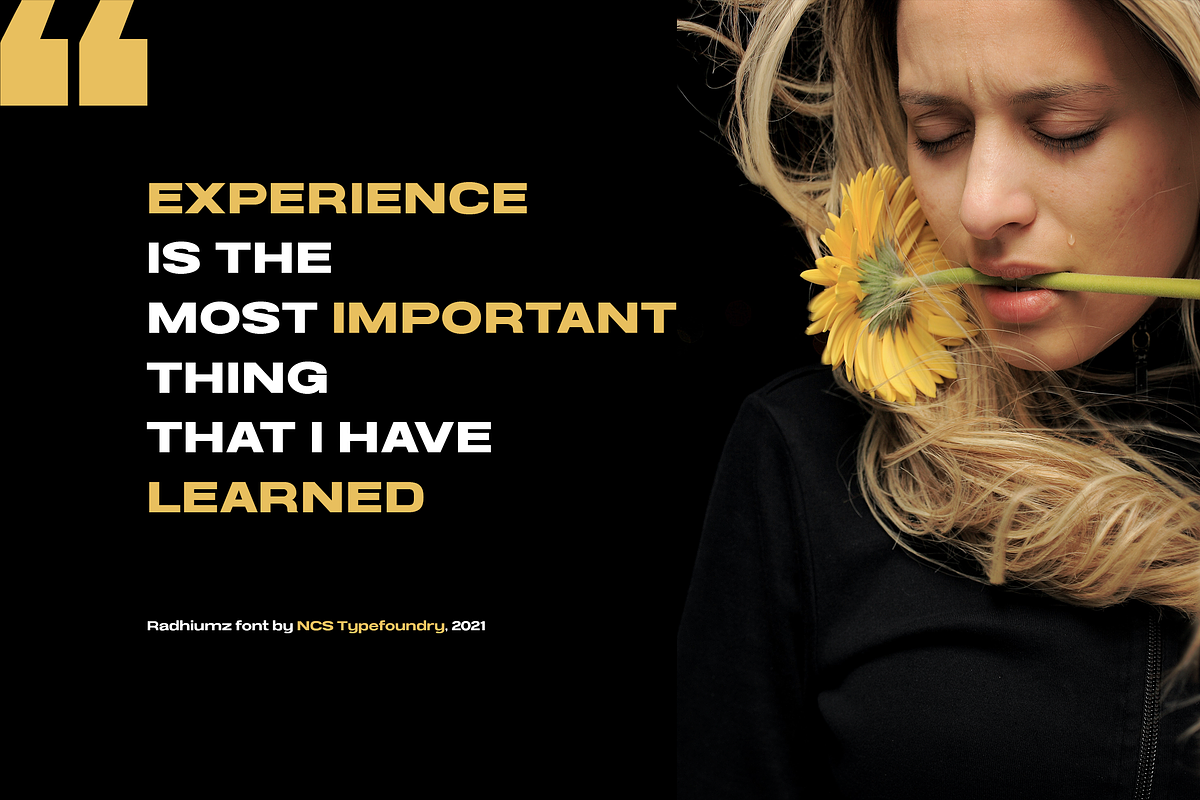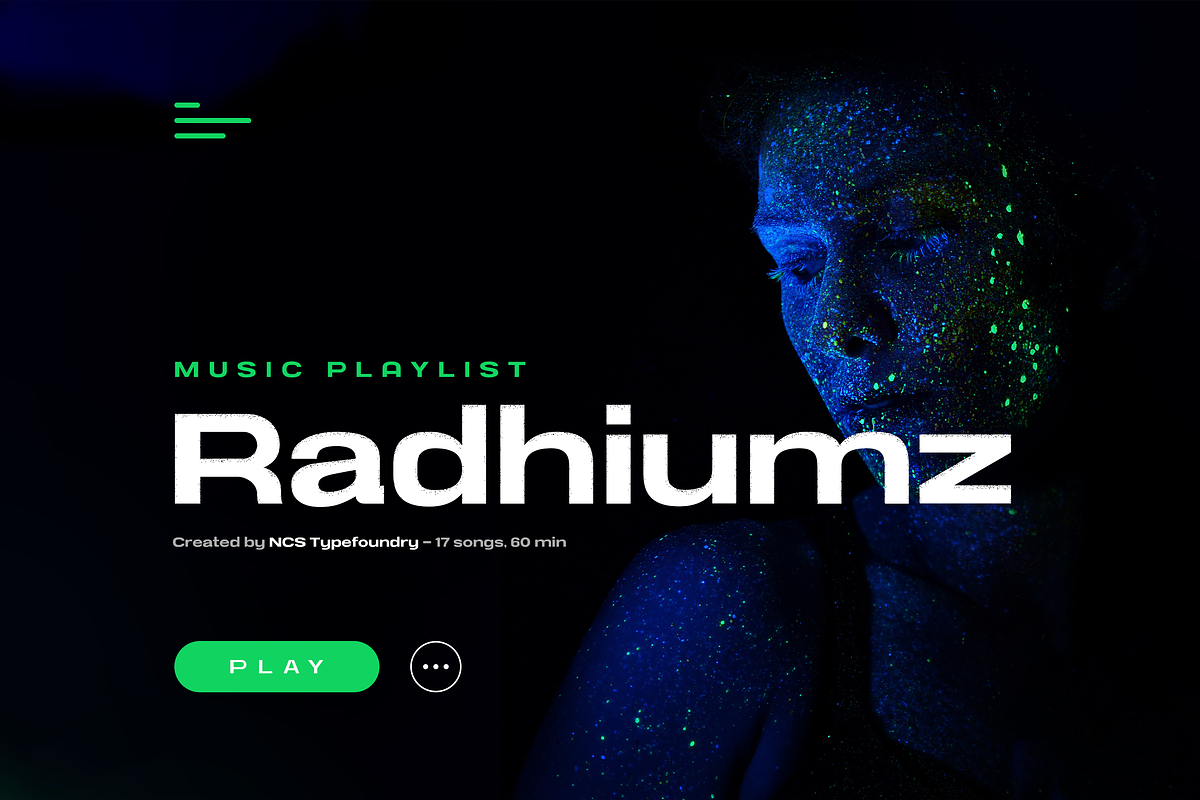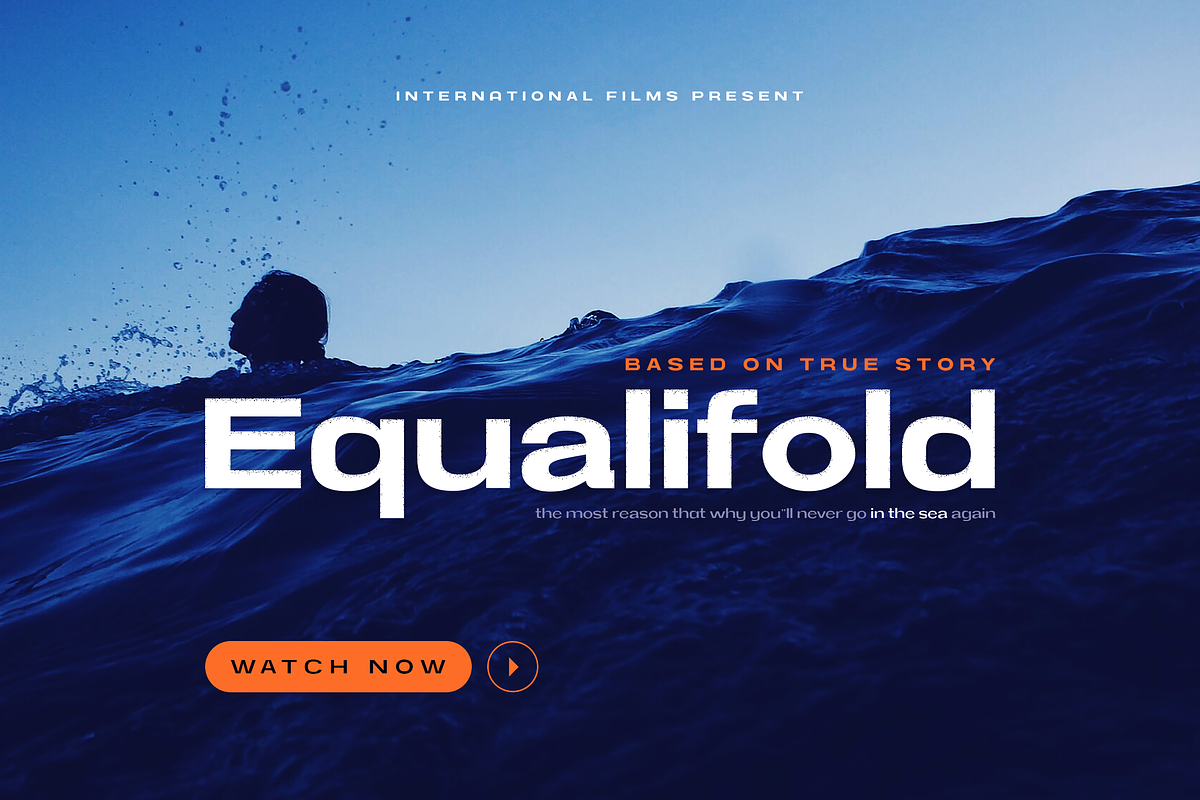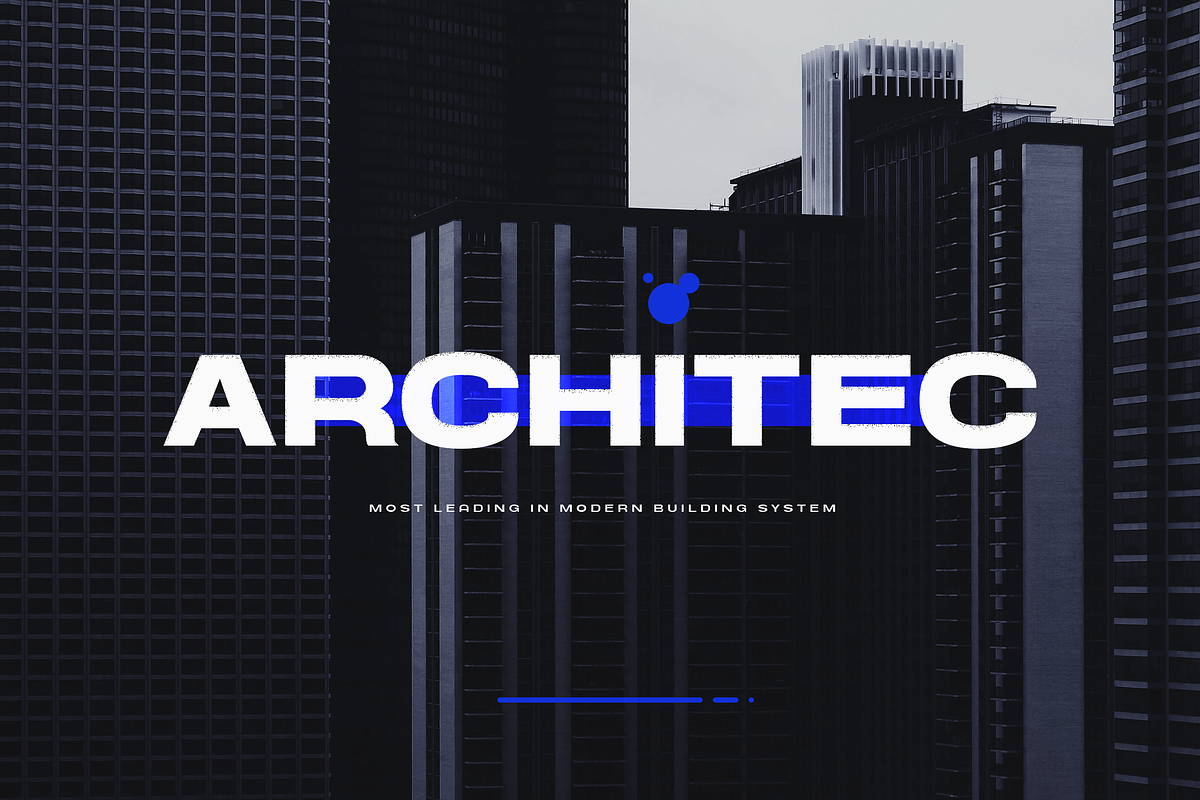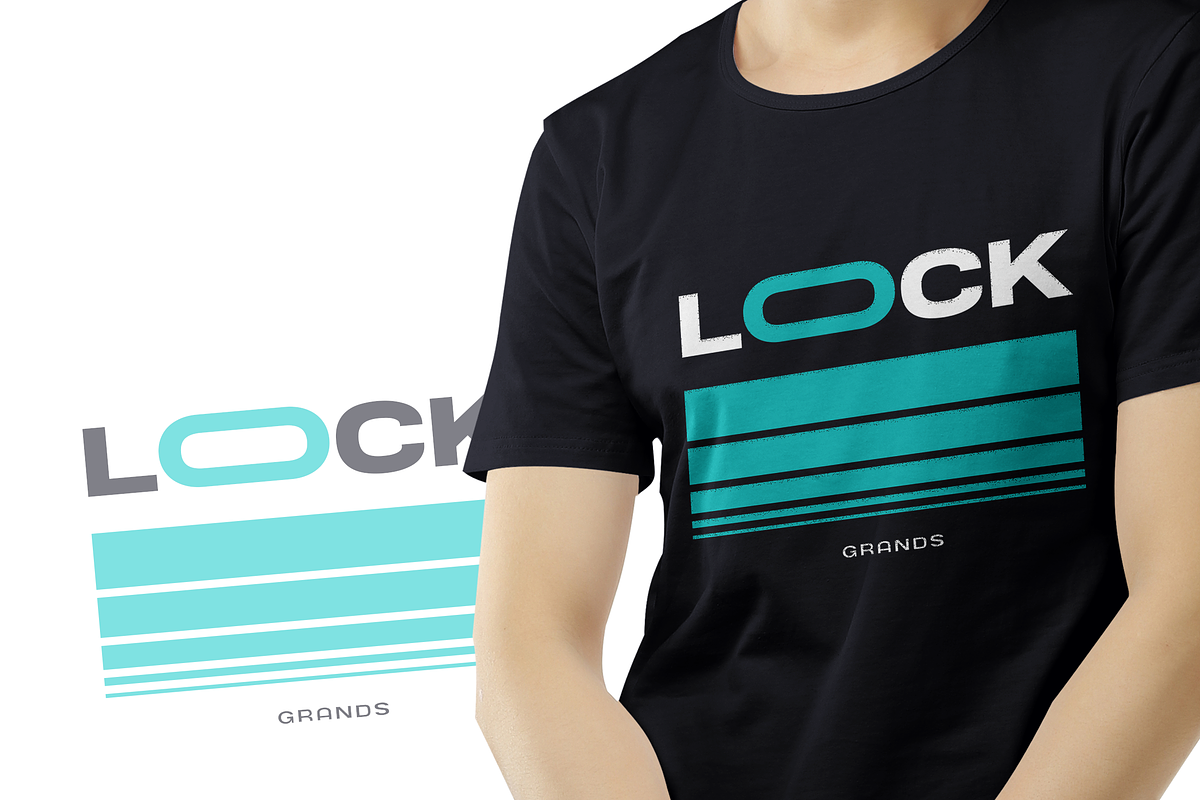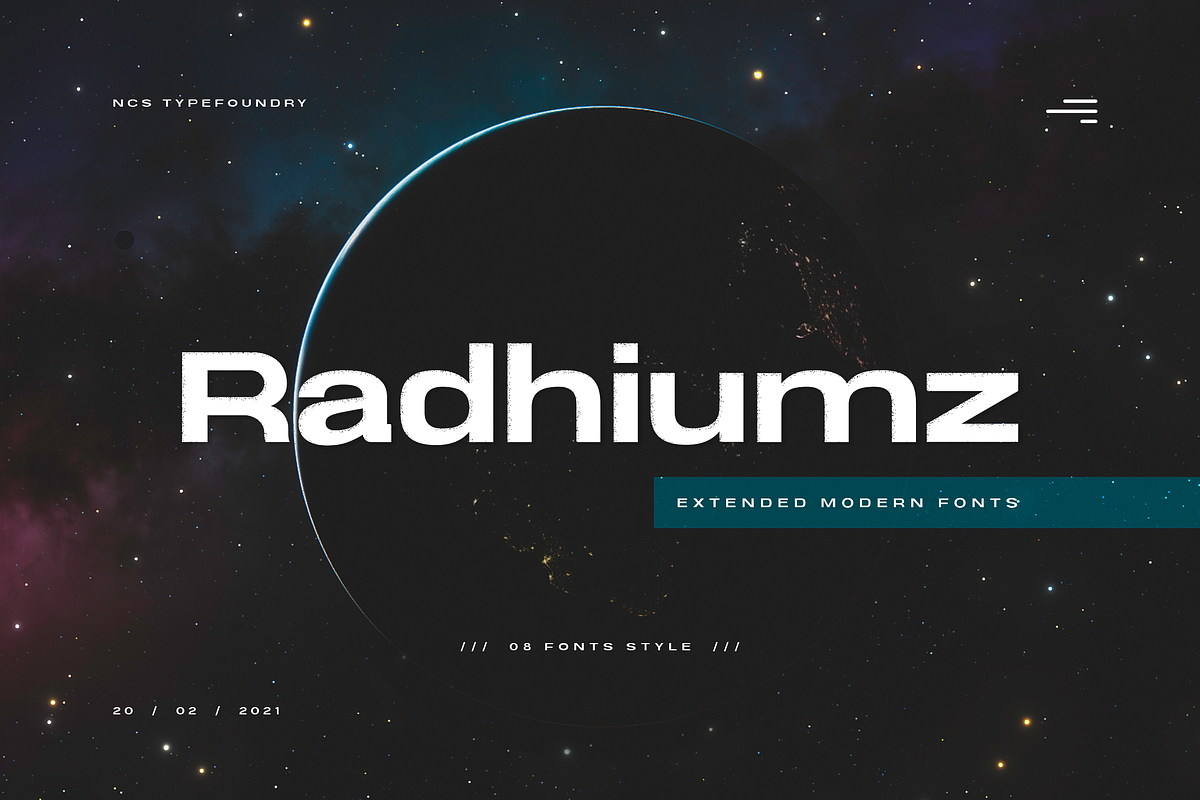
NCS Radhiumz
NCS Radhiumz is a modern powerful quality sans serif font with great versatility. This extended font can be used for bold editorial statements, graphic heavy prints or just as a simple logo. This new type will definitely make your designs stand out and unique. Included 08 variant to choose :
Light
Light Italic
Italic
Bold
Bold Italic
Bold Rounded
Bold Shadow
Included uppercase, lowercase, numerals, punctuations, multilingual support, and some alternates & ligatures.